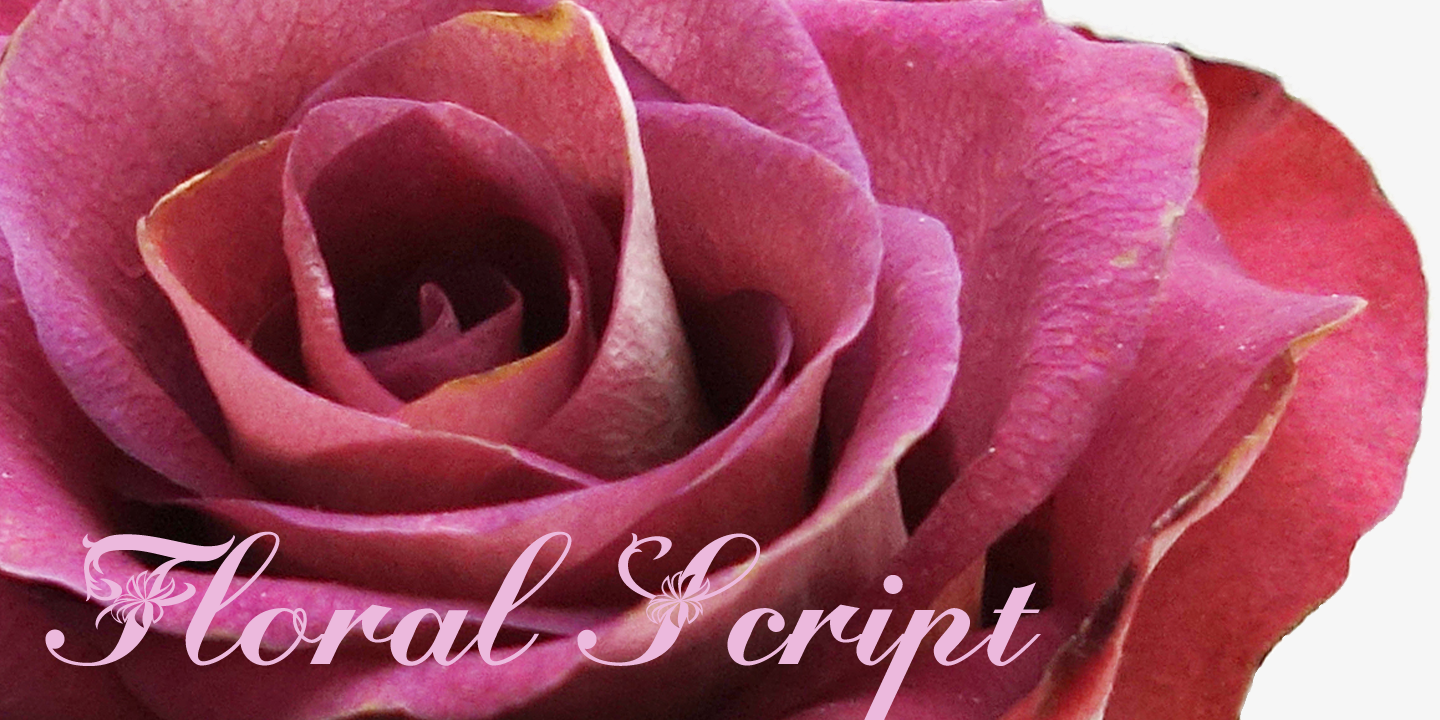
Floralscript Font excels in wedding invitations, greeting cards, branding projects, social media graphics, logo design, book covers, romantic posters, and elegant stationery designs.
Floralscript Font is exciting because it combines delicate floral elements with flowing script typography, creating a perfect balance between nature-inspired aesthetics and sophisticated lettering. This font brings organic beauty to any design project while maintaining excellent readability and professional appeal.
Floralscript Font family includes regular weight, italic variations, and decorative alternates with swash characters, providing designers with comprehensive typographic options for versatile creative applications.
Transform your design projects with the enchanting beauty of Floralscript Font Free Download. This elegant typeface features graceful curves and botanical-inspired details that make every letter feel like a work of art. Perfect for designers seeking to add romantic charm and natural elegance to their creative work, this font delivers exceptional visual impact across both digital and print media.
The carefully crafted letterforms showcase intricate floral motifs seamlessly integrated into each character, making it ideal for luxury branding, high-end packaging, and premium marketing materials. Whether you're creating wedding materials, fashion campaigns, or artistic posters, Floralscript Font provides the sophisticated touch your projects deserve.